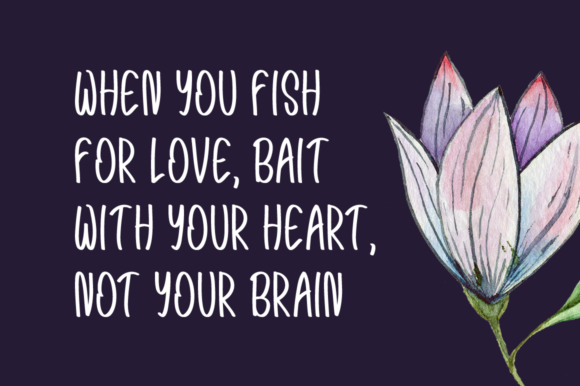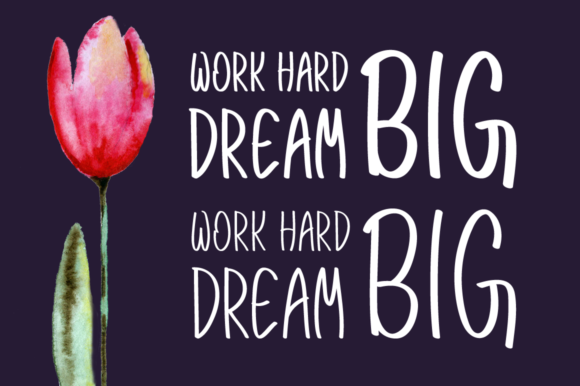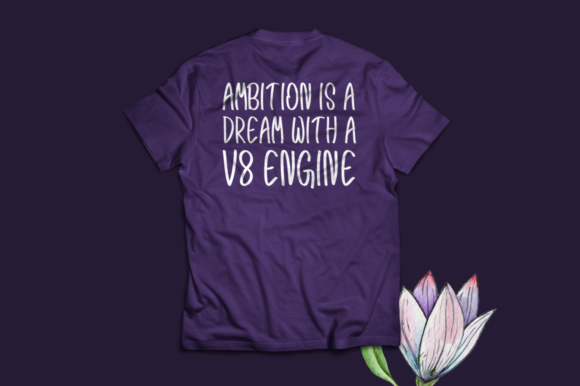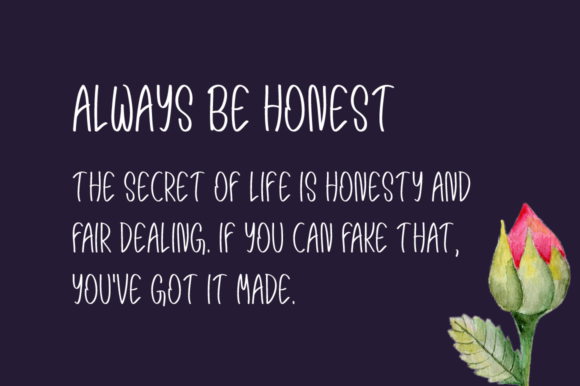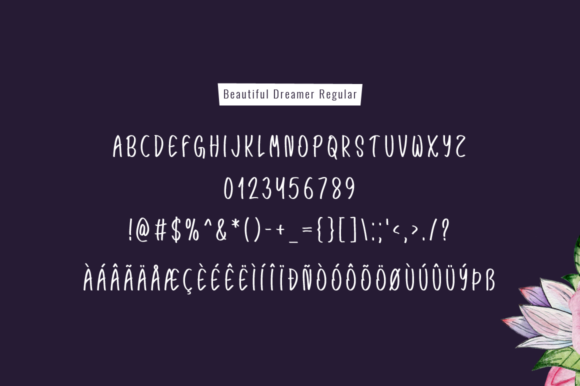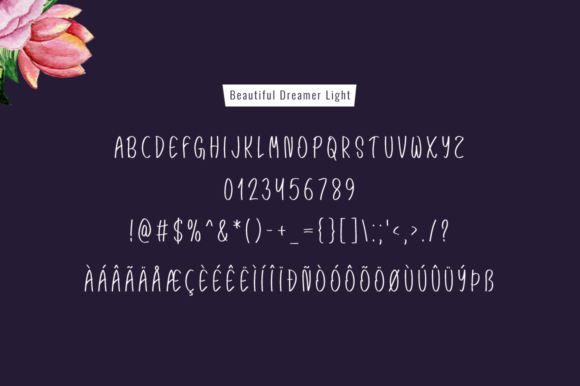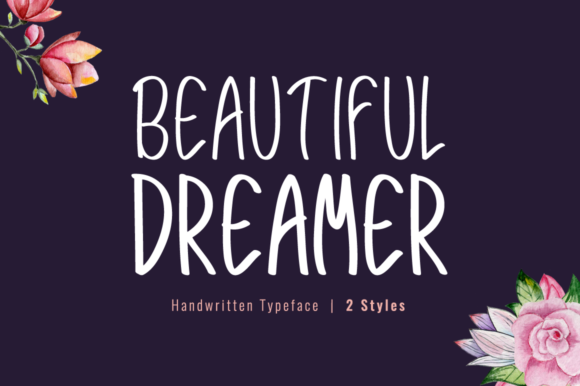
Introducing the Beautiful Dreamer Font: Elevate Your Designs with a Touch of Modern Elegance
In the world of digital design, fonts play a crucial role in conveying messages, evoking emotions, and creating lasting impressions. For designers, crafters, and DIY enthusiasts, finding the perfect font can be a daunting task. However, with the introduction of the Beautiful Dreamer Font, your search is over. This brand new, modern handwritten font is about to revolutionize your design projects with its versatility, elegance, and charm.
What Makes the Beautiful Dreamer Font Stand Out?
The Beautiful Dreamer Font is not just another addition to the vast world of digital fonts; it’s a game-changer. Here are a few reasons why it stands out:
- Modern Handwritten Style: The Beautiful Dreamer Font boasts a modern handwritten style that is both fresh and sophisticated. Its unique character makes it perfect for designers looking to add a personal touch to their projects.
- Two Stylish Variations: This font comes in two styles, offering you flexibility and variety. Whether you’re working on a logo, a poster, or a website header, you can choose the style that best fits your design vision.
- Versatility: The beauty of the Beautiful Dreamer Font lies in its versatility. It’s designed to be used across a wide range of projects, including logos, t-shirts, papers, print designs, website headers, photo frames, flyers, music covers, posters, image sliders, and much more.
- Easy to Read and Aesthetically Pleasing: The font is not only beautiful but also highly legible, making it perfect for both digital and print projects.
Whether you’re a professional designer or a crafting enthusiast, the Beautiful Dreamer Font is a valuable addition to your toolkit. Here are some ways you can use this font to elevate your designs:
- Logo Design: Create stunning logos that tell a story. The modern and elegant feel of the Beautiful Dreamer Font makes it perfect for branding and identity projects.
- T-Shirt and Merchandise Design: Add a touch of elegance to your t-shirt and merchandise designs. The font’s unique style ensures your designs stand out.
- Stationery and Printables: Elevate your stationery, journals, and printables with a font that exudes sophistication and charm.
- Web Design: Use the Beautiful Dreamer Font in your website headers and other design elements to create a cohesive and visually appealing online presence.
- DIY Projects: For crafters and DIY enthusiasts, this font can add a professional touch to homemade cards, invitations, and other craft projects.
How to Make the Most of the Beautiful Dreamer Font
To truly make the most of this beautiful font, consider the following tips:
- Experiment with Colors: The Beautiful Dreamer Font looks stunning in various colors. Don’t be afraid to experiment with different color combinations to find the one that best suits your project.
- Play with Sizes: The font’s versatility extends to its sizing. Use it in large headers or smaller body text to create visual interest.
- Mix and Match: Don’t hesitate to mix and match the two styles of the Beautiful Dreamer Font. This can add depth and dynamism to your designs.
The Beautiful Dreamer Font is more than just a font; it’s a design solution that can elevate your projects to new heights. Its modern handwritten style, versatility, and elegance make it a must-have for designers and crafters alike. Whether you’re working on a professional project or a personal DIY endeavor, this font is sure to inspire and enhance your creations. So why wait? Dive into the world of Beautiful Dreamer Font and let your imagination run wild.